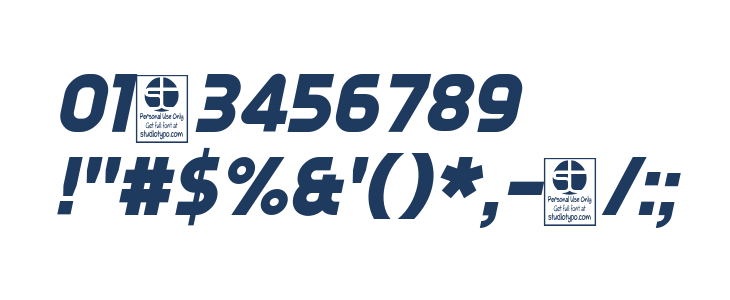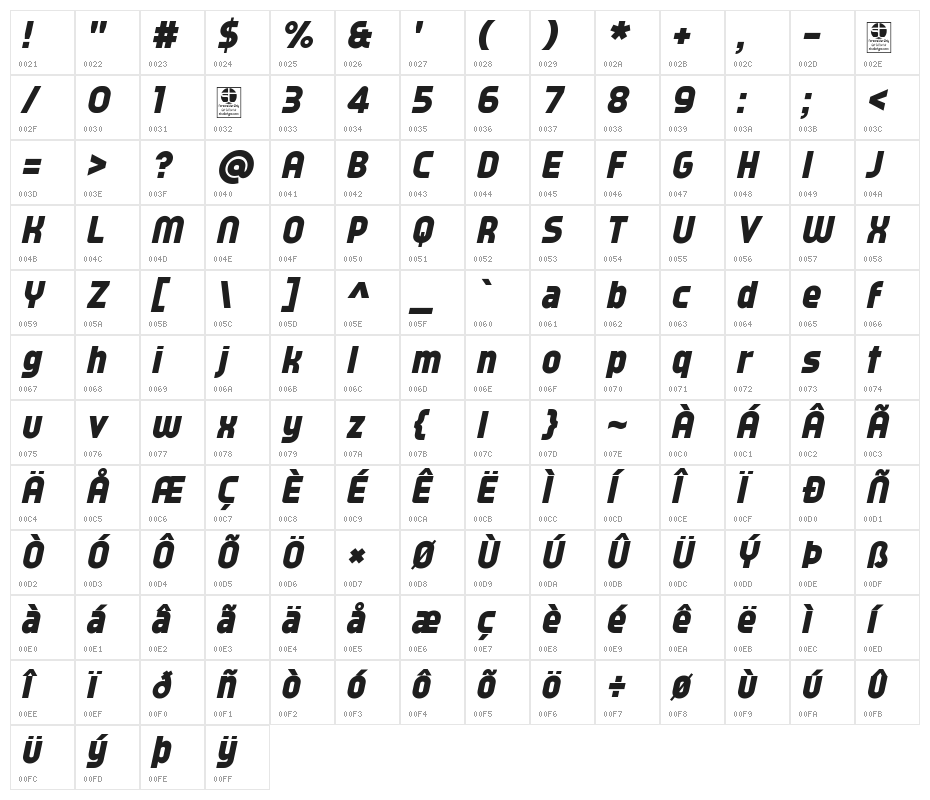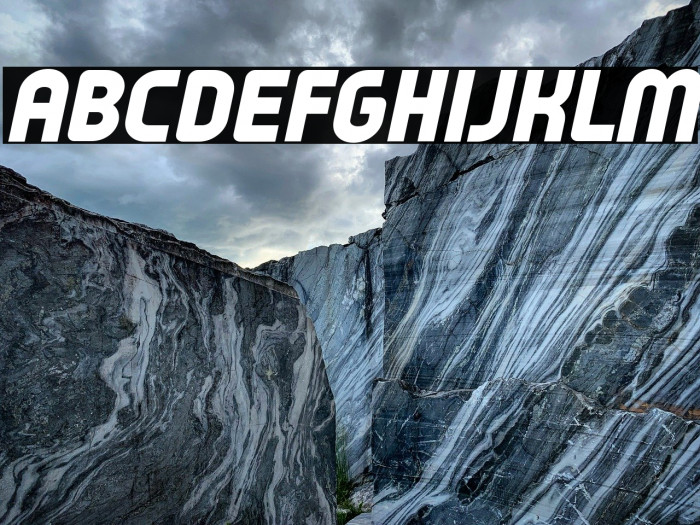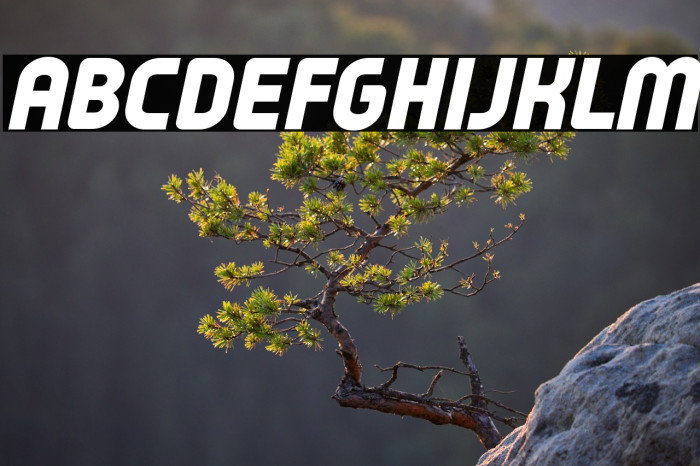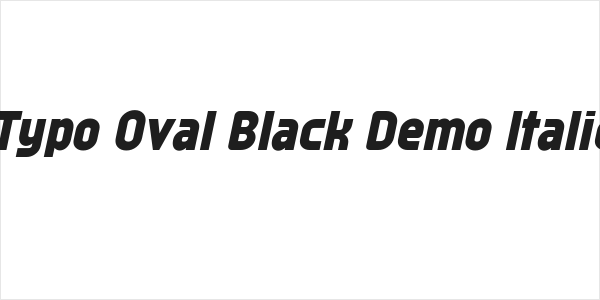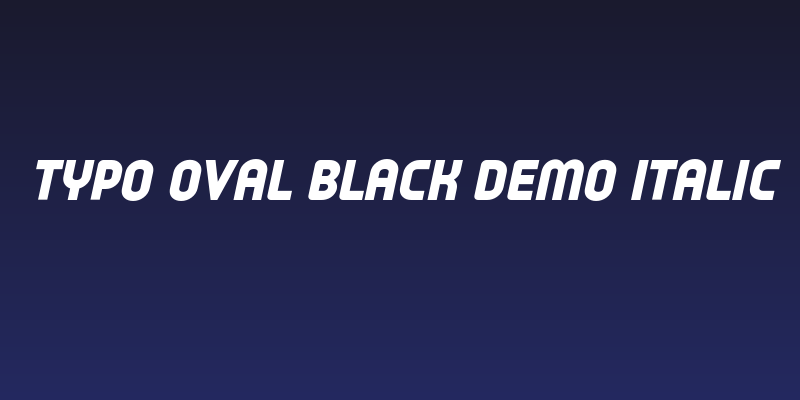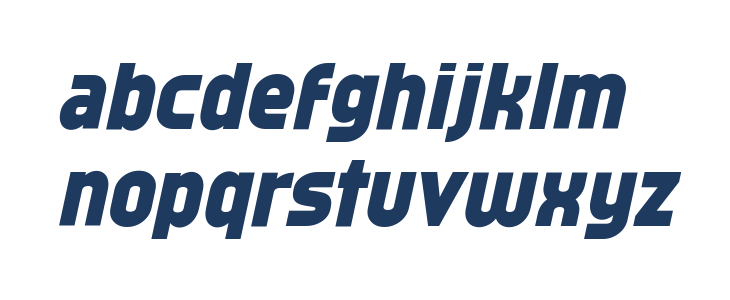
Typo Oval Black Demo Italic Font
Typo Oval Black Demo Italic Description
This font features a bold and dynamic style with a distinct italic slant, giving it a sense of motion and energy. The characters are robust and rounded, with a consistent thickness that conveys strength and stability. The uppercase and lowercase letters maintain a uniform appearance, while the numerals and special characters integrate seamlessly with the overall design. The font's boldness and italic nature make it stand out, suitable for attention-grabbing headlines or impactful logos. Its modern aesthetic is complemented by a slightly condensed width, allowing for efficient use of space without sacrificing readability.